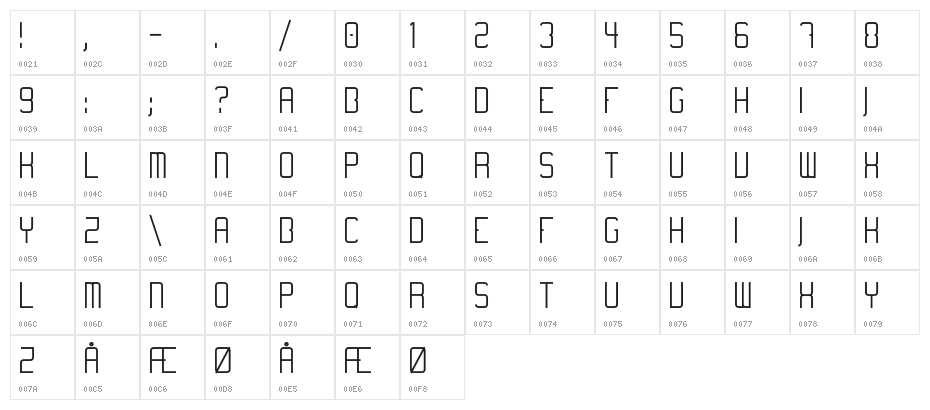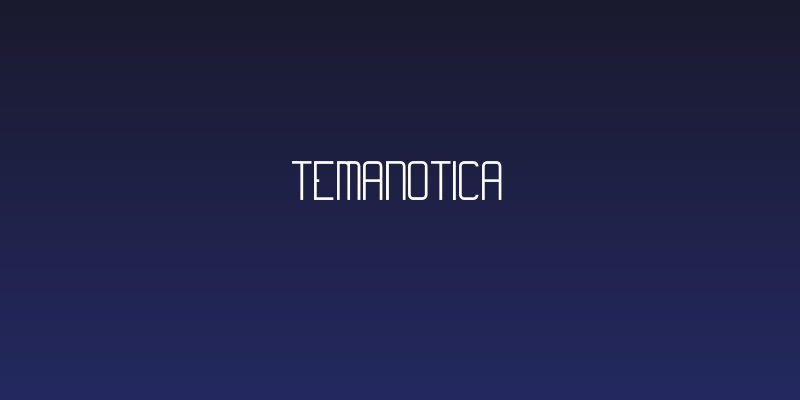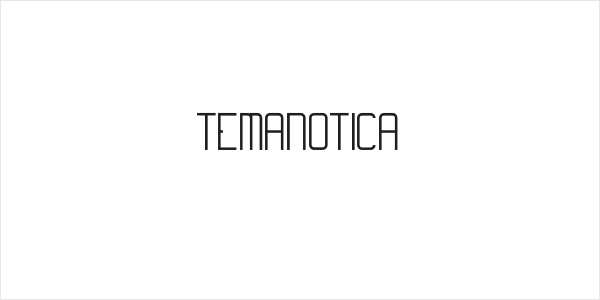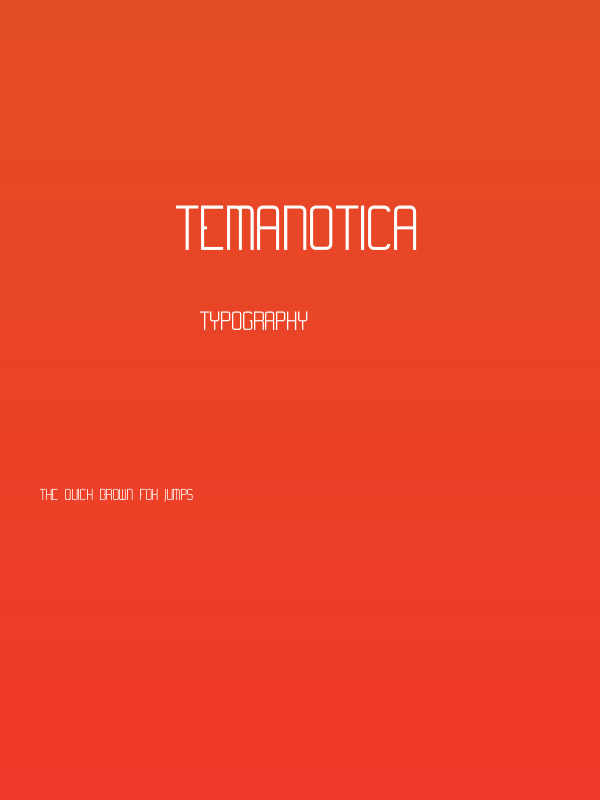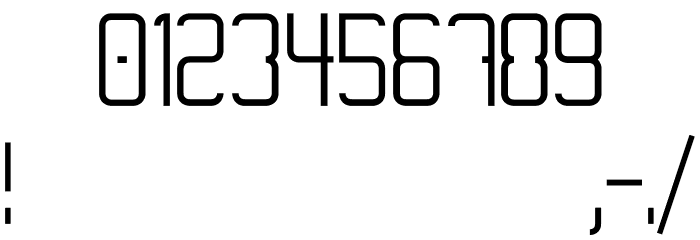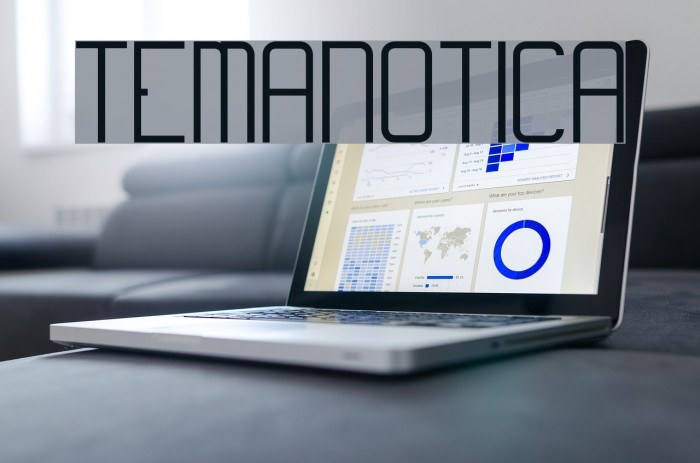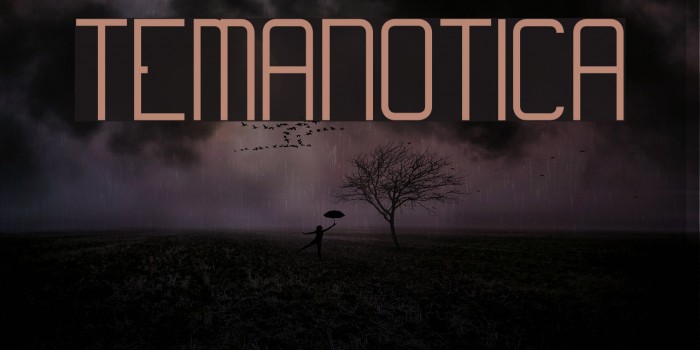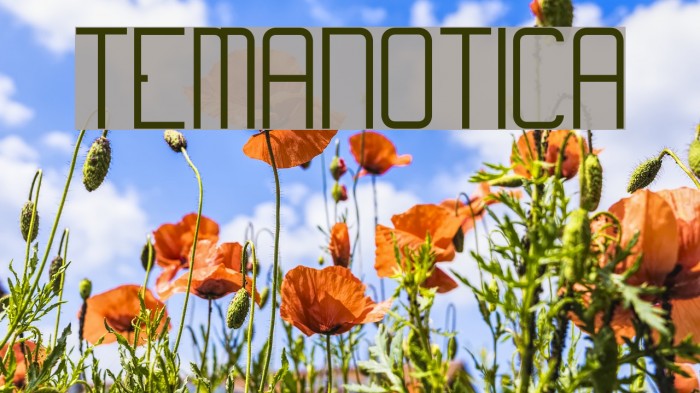
Temanotica Font
Temanotica Description
This font features a modern, geometric design with a distinctively futuristic feel. The characters are constructed with clean, straight lines and rounded corners, giving it a sleek and minimalistic appearance. The uppercase and lowercase letters maintain a consistent height, contributing to a uniform look. The numbers and special characters are designed to match the overall aesthetic, ensuring cohesion across all elements. The font's structure is open and airy, with ample spacing between characters, enhancing readability while maintaining its stylish edge.
| Proposed Projects | Ideal for technology branding, futuristic posters, modern website headers, and innovative product packaging. |